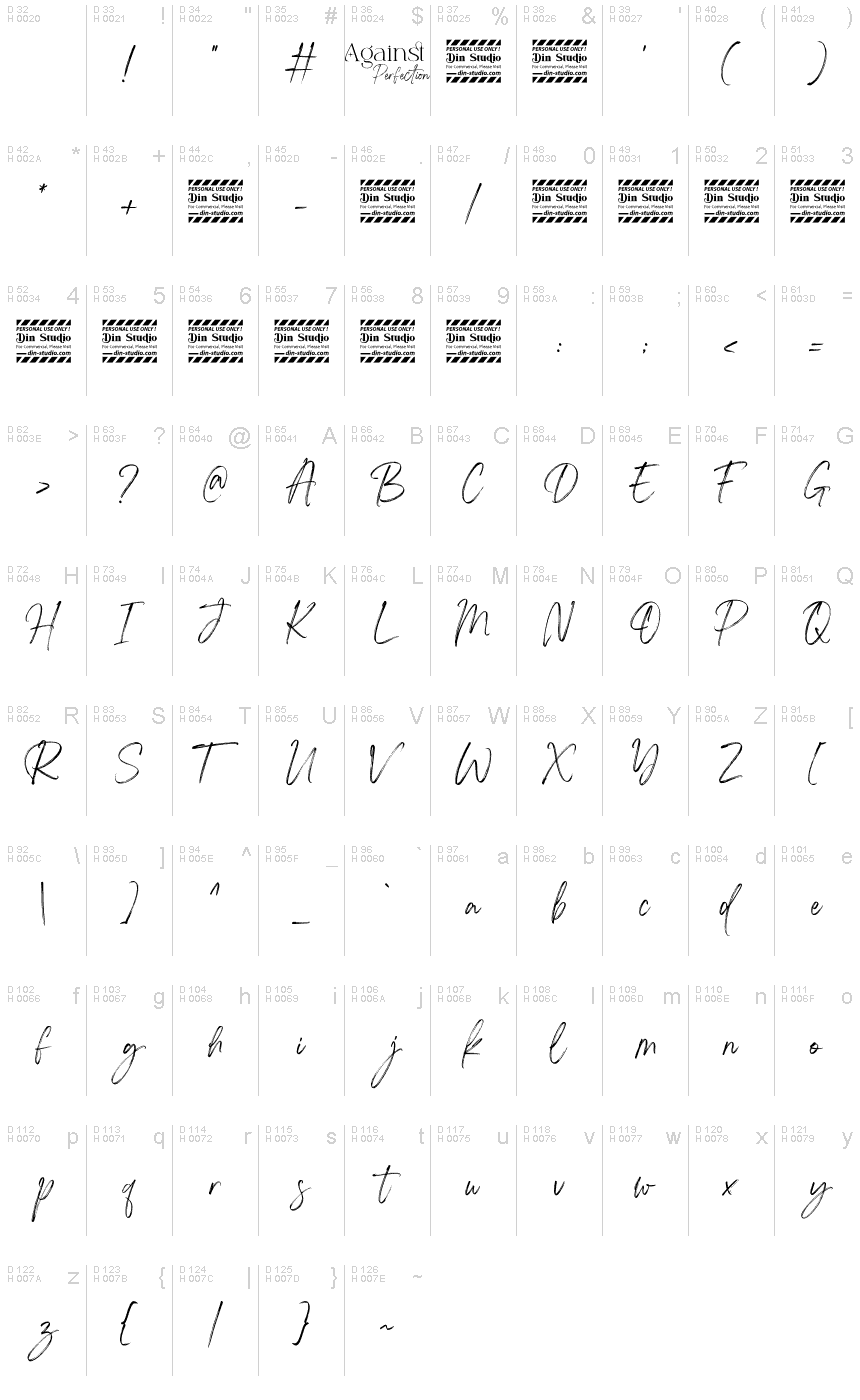
Against Perfection Script Perso
Against Perfection Script Perso, from the renowned Din Studio, is a captivating handwritten font that exudes elegance and authenticity. With its light weight and charming imperfections reminiscent of a dry marker, this font effortlessly adds personality to any project.
Perfectly suited for wedding invitations, greeting cards, and personal branding, Against Perfection Script Perso brings a touch of whimsy to your designs. Its free-flowing strokes and unique character make it an ideal choice for creating eye-catching logos or adding flair to social media graphics.